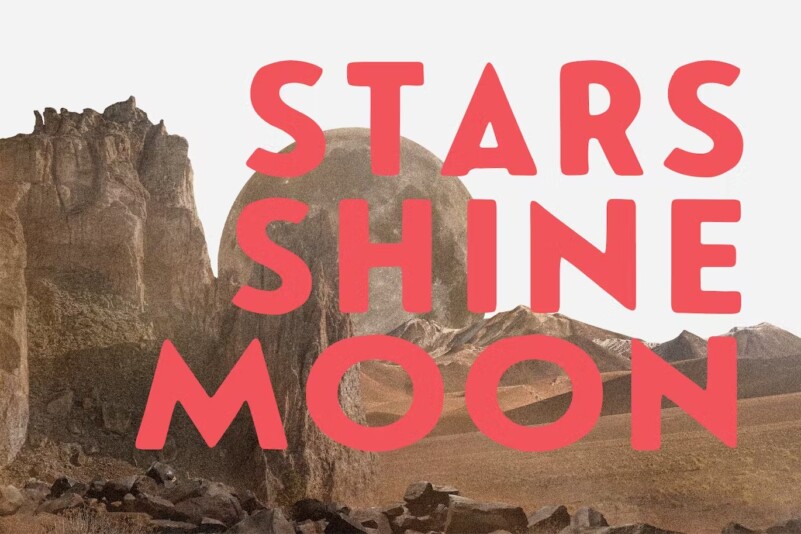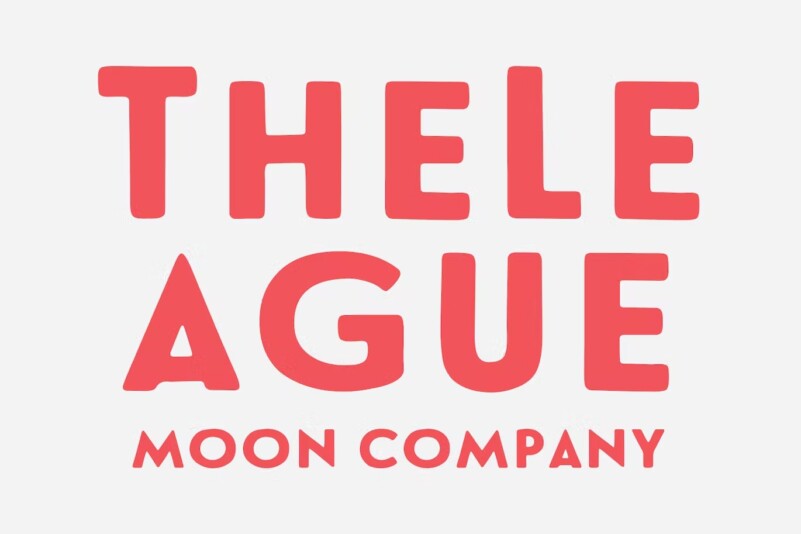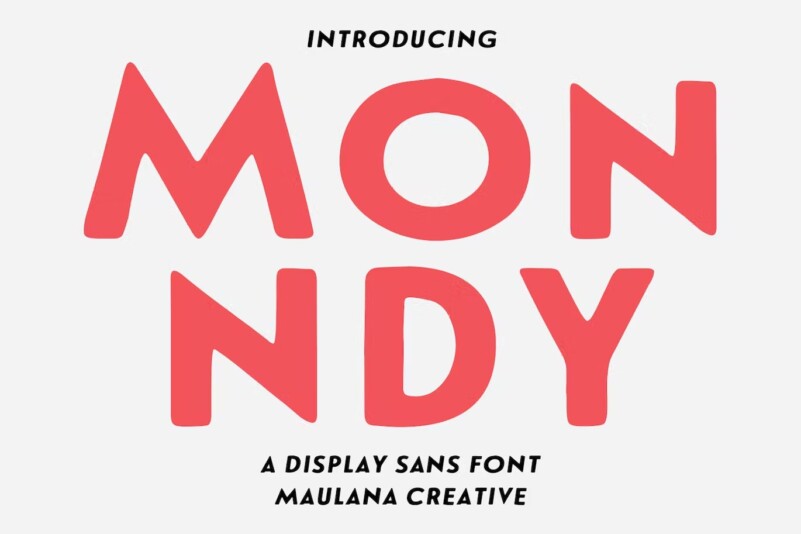
Monndy Stamp Display Font
Monndy is a rough stamp style fun sans serif font. With semi bold stroke and slant, fun character with a bit of ligatures and alternates. To give you an extra creative work. Monndy font support multilingual more than 100+ language. This font is good for logo design, Social media, Movie Titles, Books Titles, a short text even a long text letter and good for your secondary text font with script or serif. Make a stunning work with Monndy font.